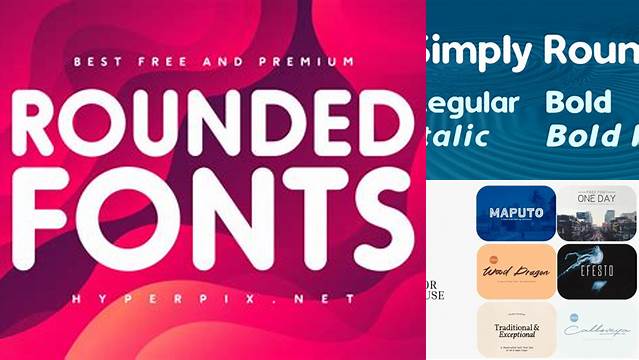
Free Rounded Fonts For Commercial Use: Your Ultimate Guide
Hey guys! Are you on the hunt for some cool, rounded fonts that you can use for your business, projects, or just for fun, and you want them absolutely free? Well, you've come to the right place! In this comprehensive guide, we're diving deep into the world of rounded fonts that are not only visually appealing but also come with the magic word: free for commercial use. Forget those hefty licensing fees! We're talking about fonts that can elevate your brand, make your designs pop, and keep your budget happy. So, buckle up, because we're about to explore a treasure trove of amazing, rounded fonts that are perfect for a variety of applications, from website design and logos to marketing materials and everything in between. Let's get started and transform your projects with some stylish, free, and commercially usable rounded fonts!
1. Understanding Rounded Fonts and Their Appeal
Rounded fonts are those friendly-looking typefaces characterized by their soft, curved terminals and edges. Unlike their sharp-edged counterparts, these fonts offer a sense of approachability, warmth, and modernity. They're like the visual equivalent of a warm hug! Because of their unique characteristics, rounded fonts have become increasingly popular in various design fields. The appeal of these fonts lies in their inherent ability to convey specific emotions and messages. This is why the need for rounded fonts is increasing every day.
Their gentle curves can communicate friendliness, playfulness, and approachability â perfect for brands that want to create a welcoming atmosphere. You can use rounded fonts in websites, especially those targeting a younger audience or businesses in the wellness and childcare sectors. Also, these fonts can add a touch of modernity and sophistication when used in the right context. The design of a rounded font itself plays a big role in its appeal. Fonts with thick strokes and high contrast can project a strong, bold image, while thinner, more delicate fonts convey elegance and subtlety. The spacing, kerning, and overall design also contribute to the font's personality, influencing how it's perceived by the viewer. When selecting a rounded font, it's crucial to consider the project's overall tone and target audience. A playful font might be ideal for a children's product, but it might not be the best choice for a financial institution. This versatility makes rounded fonts a valuable tool for any designer.
When used thoughtfully, these fonts can significantly enhance a project's visual impact. It's all about choosing the right font that aligns with your brand's identity and the message you want to communicate.
2. Why Choose Free Rounded Fonts for Commercial Projects?
Finally, using free rounded fonts is a great way to experiment with different styles and find the perfect fit for your project. You can try out several options without any financial commitment and refine your choice based on your needs. This flexibility is an invaluable asset for any designer or business owner. Using the right rounded font can make a substantial impact on your business.
- Behance: Behance, a platform by Adobe, features many designers who generously share their free fonts. You can often find unique and creative rounded fonts here. Always check the license details.
- 1001 Fonts: 1001 Fonts is a great resource for finding many different font styles, including a good selection of rounded fonts. Just make sure to check the license before downloading.
These websites offer a fantastic starting point for your font hunt. Remember to read the license agreements carefully before using any font to avoid any legal issues. By exploring these resources, you will find the perfect rounded font for your project.
4. Popular Free Rounded Fonts You Should Know
Let's get down to the nitty-gritty and explore some of the most popular rounded fonts available for free commercial use. Here are a few must-knows:
- Poppins: Poppins is a geometric sans-serif font known for its clean, modern look and excellent readability. Its rounded terminals give it a friendly feel, making it perfect for web design, branding, and print materials. This font is super versatile and comes in various weights and styles. It's a real workhorse.
- Open Sans: Open Sans is another gem from Google Fonts. This humanist sans-serif has a neutral yet friendly appearance, making it highly adaptable for various uses. The rounded elements of the characters offer a touch of softness and approachability. It is great for body text, headlines, and everything in between.
- Lato: Created by Warsaw-based designer Ćukasz Dziedzic, Lato is a sans-serif font that has a clean, friendly, and modern look. With slightly rounded corners, it looks great in any design. Lato is known for its balance and readability. It's a great choice for a wide range of applications.
- Montserrat: This geometric sans-serif is a popular choice among designers. Its rounded letterforms give it a modern and elegant vibe. Montserrat is perfect for headings, logos, and display purposes. It's a versatile and stylish choice. Always explore different versions to find the perfect rounded font.
- Nunito: Nunito is a well-balanced sans-serif with a slightly rounded feel, perfect for both display and body text. Its clean design and readability make it a great option for a variety of applications. It is very versatile and looks good in a range of designs.
These are just a few examples to get you started. Experiment with different fonts to discover the perfect fit for your project. Each font brings something unique to the table. Always check the licenses.
5. Tips for Choosing the Right Rounded Font
Selecting the perfect rounded font can be a game-changer for your project, so here are some tips to help you choose wisely:
- Consider Your Brand Identity: Does your brand want to convey playfulness, professionalism, or something in between? Choose a font that aligns with your brand's personality. A bubbly font is great for a kid-friendly brand, but a more sophisticated, modern font may be best for a tech company.
- Readability: Ensure the font is easy to read, especially for body text. Test the font in different sizes and on different backgrounds to ensure good readability. The best rounded font is the one that looks good.
- Versatility: Look for a font with multiple weights and styles. This gives you flexibility in your design. Being able to change the weight from bold to normal can be very important. This versatility is super important.
- Test it Out: Download and test the font in your project. See how it looks in different contexts, such as headings, body text, and logos. Previewing the font in different contexts will help.
- Check Licensing: Always, always check the font's licensing agreement to ensure it allows for commercial use. Make sure you won't run into any legal trouble down the line.
- Pairing Fonts: Consider how the rounded font will work with other fonts in your design. Try to avoid clashing styles and maintain a cohesive visual look.
- Consider the Target Audience: Tailor your font choice to your target audience's preferences and expectations. Choose a font that they will find appealing and easy to read. Some rounded fonts will not work for certain audiences.
By keeping these tips in mind, you'll be well on your way to selecting the perfect rounded font for your project.
6. Licensing and Commercial Use: What You Need to Know
Navigating the world of font licensing can be tricky, but it's important to understand the rules, especially when using fonts for commercial purposes. When you download a rounded font from a website, you're typically granted a license, not ownership, of the font. The license specifies how you can use the font. Always check the terms of the license agreement. When a font is free for commercial use, it generally means you can use it in your business projects, such as logos, marketing materials, websites, and products sold. You can use a rounded font in your logos or business materials. However, some licenses may have restrictions. Some may only allow the font to be used in certain types of commercial projects, while others may require you to give credit to the designer. Pay attention to any restrictions. Always read the license carefully. Make sure you understand the terms. You want to avoid any surprises down the road. If you're unsure about the terms, it's best to consult with a legal professional.
Be aware of any limitations, such as whether you're allowed to embed the font in a website or use it for selling merchandise. If you want to modify the font, such as creating a custom version, you'll need to check the license to see if it allows modifications. Often, free font licenses do allow for modifications but always check first. Always respect the creator's rights.
7. Designing with Rounded Fonts: Best Practices
Alright, now you've got your perfect rounded font picked out. Let's explore some best practices for designing with them.
- Hierarchy: Use different font weights and sizes to create a clear visual hierarchy. This will help guide the reader's eye and make your design more user-friendly. Using different weights of your chosen rounded font is very important.
- Spacing: Pay attention to spacing, especially the kerning and leading. Kerning is the space between individual letters, and leading is the space between lines of text. Adjusting these can make your design look more balanced and improve readability.
- Color: Consider the color of your font against the background. Ensure there is enough contrast so the text is easy to read. Experiment with different colors. Try using a dark rounded font on a light background.
- Balance: Strive for balance in your design. A rounded font should complement other design elements, such as images and graphics. Make sure everything looks good together.
- Consistency: Maintain consistency in your font choices throughout your project. If you use a rounded font for headings, stick with it for all headings to create a unified look. This will make your design look more professional.
- Purpose: Consider the purpose of your design. Is it for a website, a poster, or something else? Tailor your font choice to the specific use case. Choose a rounded font that looks great in the context of your project.
By following these best practices, you'll ensure your designs look polished and effective.
8. Rounded Fonts in Web Design: Making Your Website User-Friendly
Rounded fonts can play a crucial role in web design, creating a user-friendly and visually appealing experience. The use of a rounded font gives a website a friendly and welcoming look. Here's how:
- Readability: Choose a rounded font that's easy to read on screens. Ensure the font is large enough and the contrast is sufficient, especially for body text. Also, the right size is important for a website.
- Hierarchy: Use different font weights and sizes to create a visual hierarchy that guides the user through the content. Use a bolder weight for headings and a lighter weight for body text. The hierarchy is very important for websites.
- Responsiveness: Ensure your font looks good on all devices, from desktops to mobile phones. Test your website on different devices and screen sizes. The rounded font must look good on any device.
- Performance: Be mindful of the font files' size. Large font files can slow down your website's loading speed, which can frustrate users. Optimize font files. This is very important for websites.
- Typography: Pay attention to the overall typography. Use proper line spacing, letter spacing, and paragraph spacing to improve readability. Always focus on improving readability. Always look at the typography to look for improvement.
When using rounded fonts in web design, it is all about the user experience.
9. Rounded Fonts for Logos and Branding
Logos are the face of your brand, and the right font can make a significant impact. Here's how to use rounded fonts to create memorable logos:
- Personality: Choose a rounded font that reflects your brand's personality. A playful font is ideal for a kids' brand, while a more sophisticated font is better for a tech company. The rounded font should reflect the personality of your brand.
- Uniqueness: Ensure your logo is unique and stands out from the crowd. Experiment with different fonts and styles to create a unique look. Your rounded font should look great.
- Scalability: Choose a font that looks good at different sizes. The rounded font must look good at any size. Logos are used in many different contexts.
- Versatility: The logo should work well in different contexts, such as on your website, business cards, and social media. Choose a rounded font that is versatile.
- Memorability: Aim for a logo that is memorable and easily recognizable. The font choice contributes to this. The rounded font you choose will make a big difference.
When designing a logo, the rounded font is super important.
10. Rounded Fonts in Marketing Materials: Creating Engaging Content
Your marketing materials are a direct representation of your brand. Using rounded fonts strategically can make them more engaging. Here's how:
- Consistency: Use the same font consistently across all your marketing materials. This reinforces your brand identity and builds brand recognition. The use of rounded fonts is important.
- Readability: Ensure your font is easy to read, even at smaller sizes. People will need to read it. The text should be easy to read. The rounded font must be readable.
- Headlines: Use bold, eye-catching fonts for headlines to grab attention. Use different weights of the rounded font.
- Body Text: Choose a font for body text that is easy to read and doesn't distract from the message. Make sure it is readable. The rounded font must be readable.
- Design: The font you choose should match the overall design of your marketing materials. The rounded font should match your design.
Using the right rounded font can make marketing materials super effective.
11. Pairing Rounded Fonts with Other Fonts: Finding the Perfect Match
Pairing your rounded font with other fonts can elevate your designs. Here's how to find the perfect match:
- Contrast: Create contrast by pairing a rounded font with a font from a different category, such as a sans-serif or a serif font. Contrast can make your design more visually appealing. Having contrast is super important.
- Complementary Fonts: Pair your rounded font with a font that shares a similar style or mood. The font must complement each other. The fonts need to complement each other.
- Hierarchy: Use one font for headings and another for body text to create a clear visual hierarchy. Use different fonts for headings. The right combination of fonts is very important.
- Experimentation: Experiment with different font pairings until you find the perfect match. Try out all types of fonts. The best pairing will vary based on your project.
Finding the right combination of fonts can elevate your designs, and the rounded font is a great place to start.
12. The Psychology of Rounded Fonts: What They Convey
Rounded fonts have a unique psychology. They can convey various emotions and messages:
- Friendliness: The curves of the rounded font can make a brand or design feel welcoming and approachable. The curves of these fonts are great.
- Playfulness: Rounded fonts often evoke a sense of playfulness and fun, making them ideal for brands targeting children or young audiences. These fonts can be very fun.
- Modernity: Rounded fonts can appear modern and contemporary, giving a brand a fresh and up-to-date look. The fonts are great in any modern design.
- Softness: The gentle curves of a rounded font communicate softness and comfort, making them appropriate for brands in the health and wellness sectors. The font can show softness.
Understanding the psychology of fonts is important.
13. Accessibility Considerations: Ensuring Your Fonts Are Inclusive
Accessibility is key. Here's how to ensure your rounded fonts are inclusive:
- Readability: Choose fonts that are easy to read, especially for users with visual impairments. The font has to be readable.
- Color Contrast: Ensure there is sufficient contrast between the text and the background. Use a contrast checker. The font must contrast.
- Font Size: Use a large enough font size so users can easily read the text. The font size is very important.
- Line Spacing: Ensure that the space between lines is sufficient to improve readability. The line spacing is important.
Making your fonts accessible helps a lot.
14. Case Studies: Successful Use of Rounded Fonts in Branding
Here are some examples of brands successfully using rounded fonts:
- Google: Google's logo and interface feature a friendly, rounded font that contributes to its approachable image.
- Airbnb: Airbnb uses a modern, rounded font that conveys a sense of community and hospitality.
- Spotify: Spotify's use of a rounded font gives it a contemporary feel. The font looks good.
These brands have proven that rounded fonts can be successful.
15. Troubleshooting Common Font Issues: Making Your Designs Perfect
Here's how to fix common font issues:
- Font Rendering: If a font appears blurry, make sure it's rendering correctly on all devices and browsers. The font has to render.
- Spacing: Adjust kerning and leading to optimize readability. Make sure you adjust the spacing.
- Licensing: Ensure you are following the license terms for commercial use. Make sure you follow the license.
Correcting these issues can improve your design.
16. Future Trends in Rounded Fonts: What to Expect
- More Variations: We will likely see even more variations of rounded fonts. Expect to see new variations.
- Customization: We will see more options for customizing fonts. Make sure you customize the fonts.
- AI-Driven Design: AI may play a role in the creation of fonts. AI may come to help design fonts.
These trends will impact the use of rounded fonts.
17. Rounded Fonts for Different Industries: Tailoring Your Choice
Here's how to choose fonts for various industries:
- Tech: Opt for a modern and clean rounded font. The fonts will match the industry.
- Healthcare: Choose fonts that convey trust and approachability. Use a friendly font.
- Education: Select playful and engaging fonts. Use a playful font.
Choosing the right font is important.
18. Resources for Learning More About Typography and Fonts
Here are some resources for learning more:
- Online Courses: Take online courses.
- Books: Read books about typography.
- Blogs: Follow typography blogs.
Always learn more about fonts.
19. Combining Rounded Fonts with Other Design Elements: Creating a Cohesive Look
Here's how to combine rounded fonts with other design elements:
- Images: Use images that complement your font choice. The images should match the font.
- Colors: Choose colors that enhance the readability of your font. The color has to complement the font.
- Layout: Design layouts that improve the overall visual flow. Make sure the layout is good.
Combining elements can improve designs.
20. Free vs. Paid Rounded Fonts: Weighing Your Options
Consider the pros and cons of each. Free fonts are more accessible. Paid fonts often offer more features.
21. Using Rounded Fonts in Print Design: Making Your Designs Pop
Using rounded fonts in print design can make your designs pop. Here's how:
- Readability: Choose fonts that are easy to read in print.
- Color: Use colors that print well.
- Contrast: Ensure good contrast.
Use the right fonts.
22. Making the Most of Google Fonts for Rounded Fonts
Google Fonts is a great resource for rounded fonts. Here's how to make the most of it:
- Browse: Browse the library.
- Filter: Filter the fonts.
- Test: Test the fonts.
Use Google Fonts effectively.
23. Testing Your Rounded Font: Ensuring It Works for You
Here's how to test your rounded font:
- Preview: Preview the font.
- Readability: Check for readability.
- Context: Test it in context.
Make sure the font is working.
24. Advanced Typography Techniques with Rounded Fonts
Here are some advanced techniques:
- Kerning: Adjust kerning.
- Leading: Adjust leading.
- Tracking: Adjust tracking.
Use these techniques.
25. Common Mistakes to Avoid When Using Rounded Fonts
Here are some mistakes to avoid:
- Poor Readability: Avoid poor readability.
- Bad Contrast: Avoid bad contrast.
- Licensing Issues: Avoid any issues.
Avoid these mistakes.
26. Finding Inspiration for Rounded Font Designs
- Behance: Use Behance.
- Dribbble: Use Dribbble.
- Design Blogs: Read design blogs.
Get some inspiration.
27. The Importance of Font Weight and Style in Rounded Fonts
Font weight and style are super important.
- Weight: Use the right weight.
- Style: Use the right style.
Use them properly.
28. Rounded Fonts and User Experience (UX): Enhancing User Interaction
Rounded fonts help UX.
- Readability: Improve readability.
- Hierarchy: Create hierarchy.
- Appeal: Make your site appealing.
Improve UX.
29. The Evolution of Rounded Fonts: From Past to Present
Rounded fonts have evolved. Learn about their history and how they have changed.
30. Future-Proofing Your Designs: Staying Updated with Font Trends
Always stay updated with the trends.
- Trends: Follow the trends.
- Experiment: Always experiment.
Keep your designs fresh.